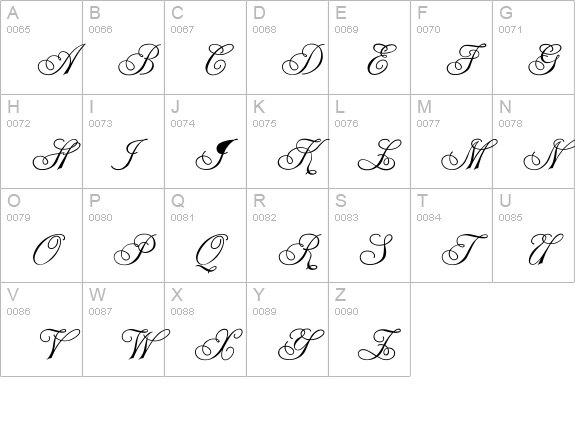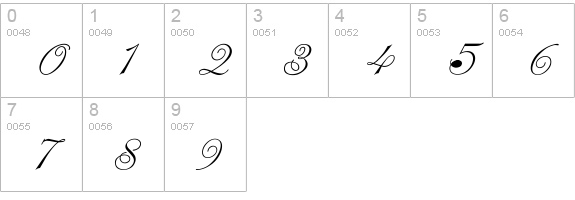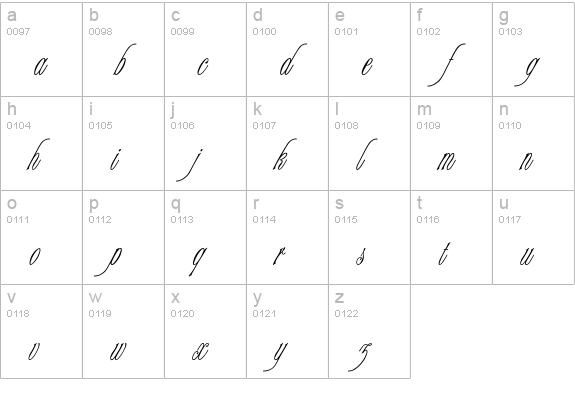
Elenovire Font Details
Elenovire font is a modern and stylish typeface that exudes elegance and sophistication. With its sleek lines and contemporary design, Elenovire is perfect for a wide range of design projects, from branding to editorial layouts. This versatile font features a unique blend of classic and modern elements, making it a standout choice for any creative endeavor. What sets Elenovire font apart is not only its striking aesthetics but also the fact that it is available for free. Yes, you read that right – Elenovire font can be downloaded at no cost from FontsMarket.com. Whether you're a seasoned designer looking to add a fresh touch to your projects or a budding artist seeking high-quality resources without breaking the bank, Elenovire font is the perfect choice. Don't miss out on this fantastic opportunity to enhance your designs with this exquisite typeface – download Elenovire font today and let your creativity soar.